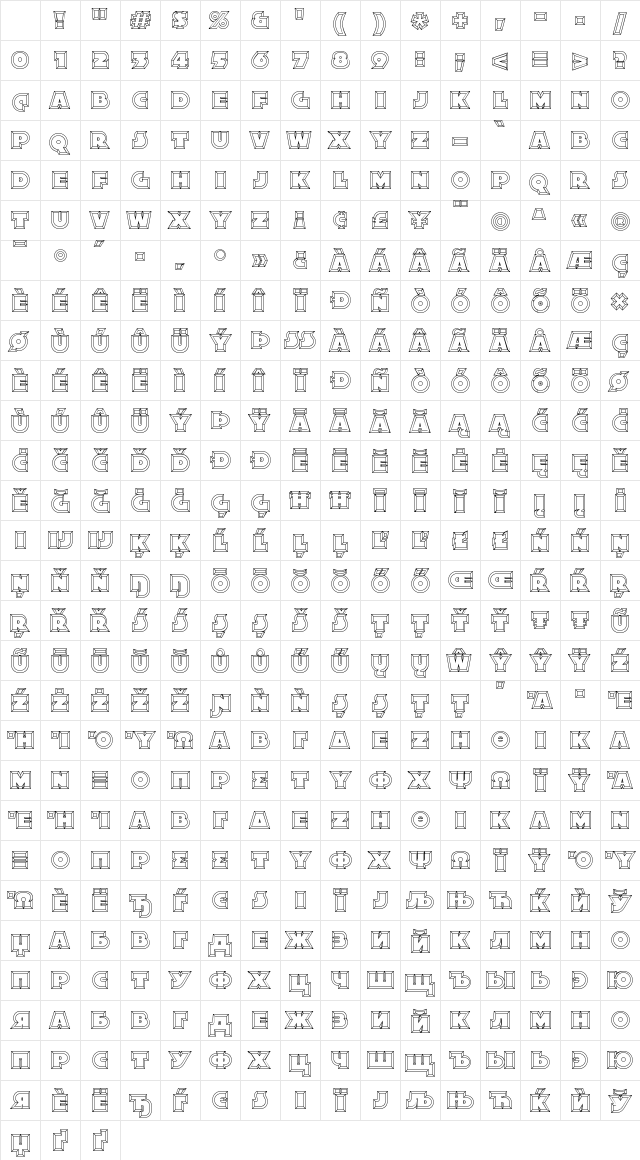
Complete Xylitol Hollow glyph index. Displaying only characters natively supported by Xylitol Hollow font.
Xylitol is a composed and adaptable typeface that performs quietly and consistently across a wide range of design contexts.